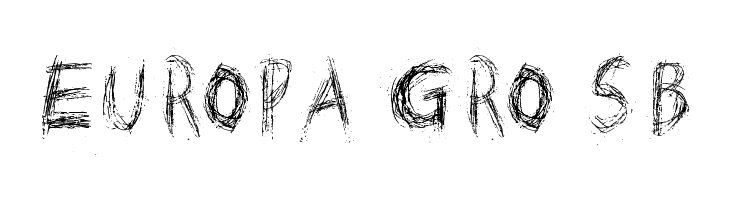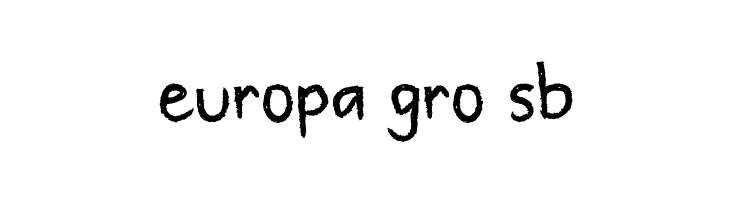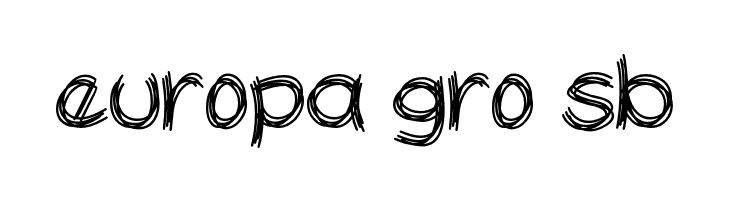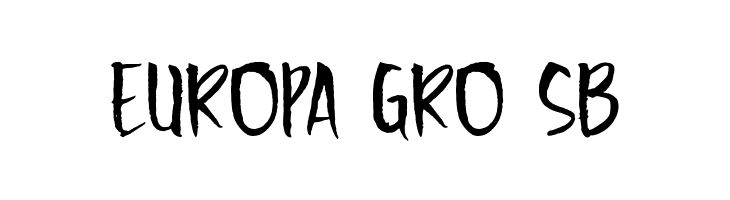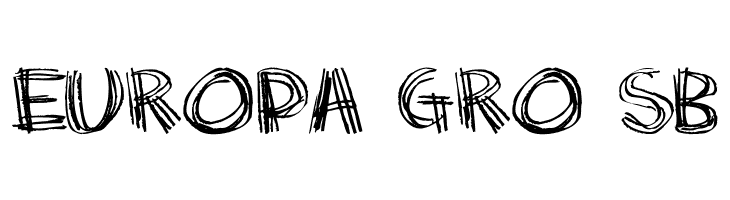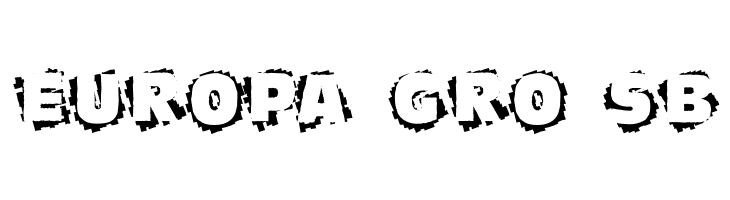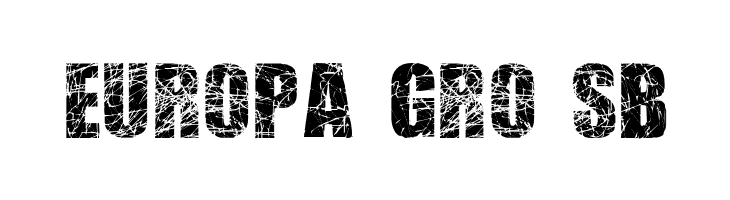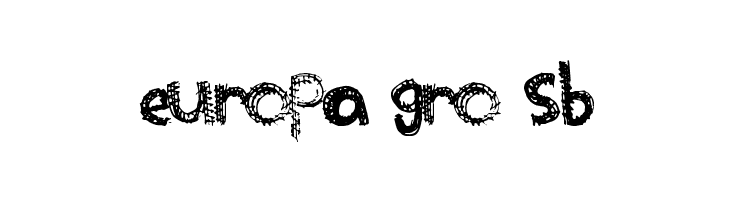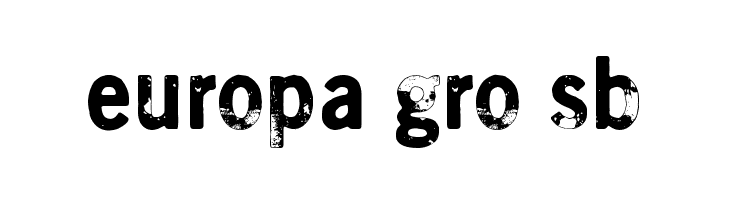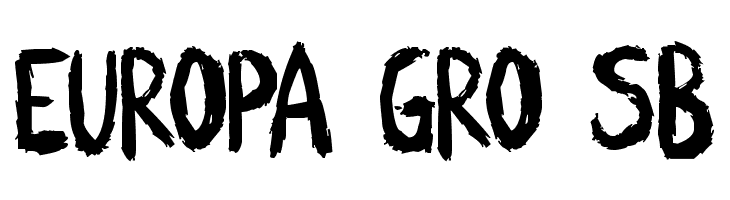
A bold, brush-style font with dynamic strokes and a hand-drawn aesthetic.
A dynamic, hand-drawn font with a rough, edgy style.
A scratchy, hand-drawn font with an edgy, artistic style.
A bold, distressed font with a scratched, edgy appearance.
A playful, bold handwritten font with rounded, consistent letterforms.
A playful, hand-drawn font with bold, rounded strokes and a whimsical style.
A scratchy, hand-drawn font with a dynamic and textured style.
A sketchy, hand-drawn font with energetic, overlapping strokes.
A bold, distressed font with a vintage, rugged appearance.
A bold, distressed font with a scratch-like texture, perfect for dynamic and edgy designs.
A bold, distressed font with a grunge texture, ideal for vintage or industrial designs.
A bold, rugged font with a distressed, handcrafted look.
A bold, rugged font with a distressed, handcrafted appearance.
A distressed, graffiti-like font with jagged, uneven strokes and a rebellious aesthetic.
A bold, distressed font with a scratched texture, perfect for edgy designs.
A distressed, hand-drawn font with a raw, edgy appearance.
A bold, distressed font with a scratched texture, perfect for edgy designs.
A bold, hand-drawn font with a rough, textured brush stroke appearance.
A bold, textured, hand-drawn font with a brush-like appearance.
A sketch-like, hand-drawn font with dynamic and irregular strokes.
A textured, hand-drawn font with a playful, chalk-like appearance.
A bold, jagged font with a chaotic, energetic style.
A scratchy, hand-drawn font with a dynamic and edgy appearance.
A bold, hand-drawn font with a sketch-like, crosshatched texture.
A rugged, edgy font with sharp, jagged lines and a rebellious aesthetic.
A bold, distressed font with a scratched, textured appearance.
A bold, jagged font with a scratch-like, distressed appearance.